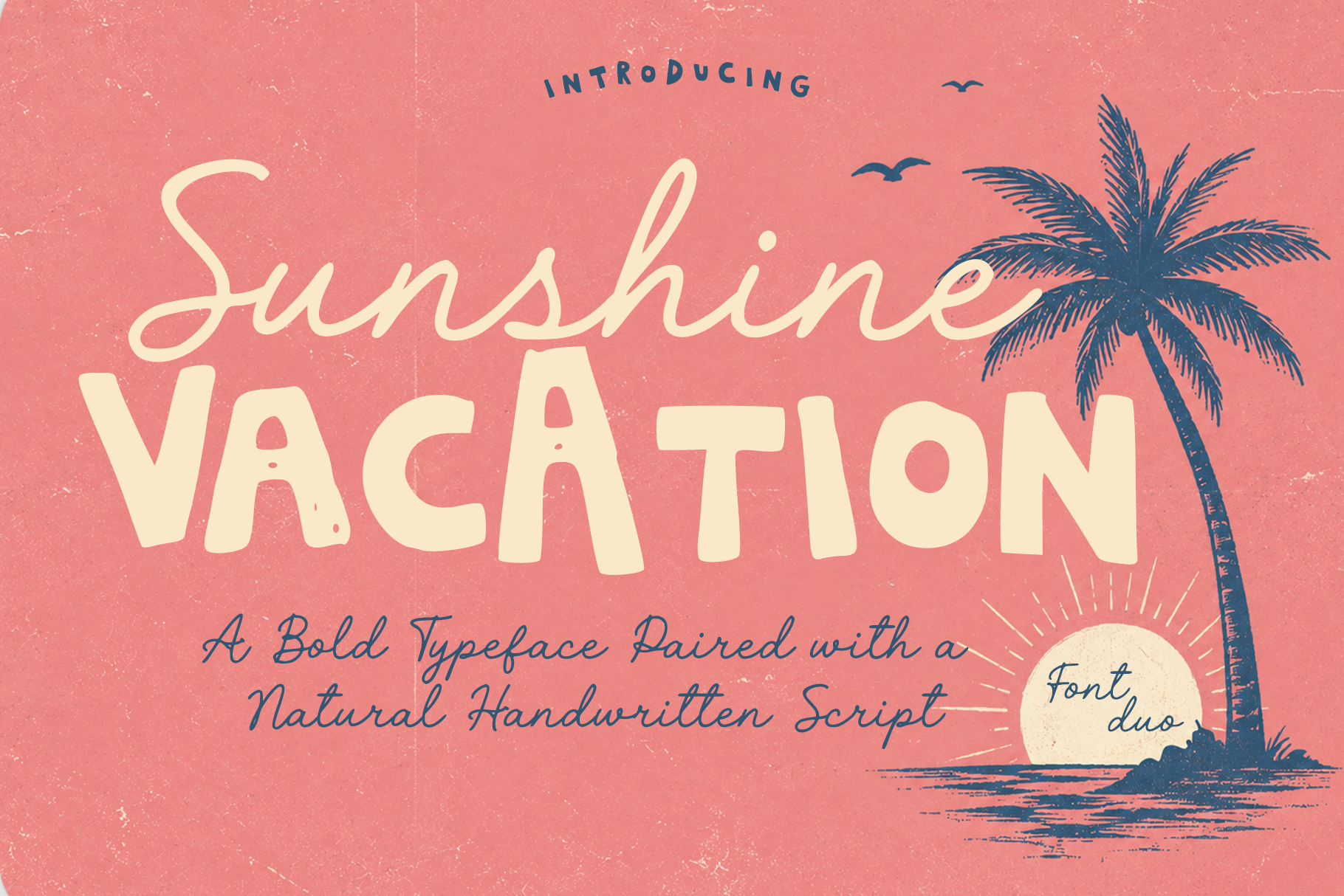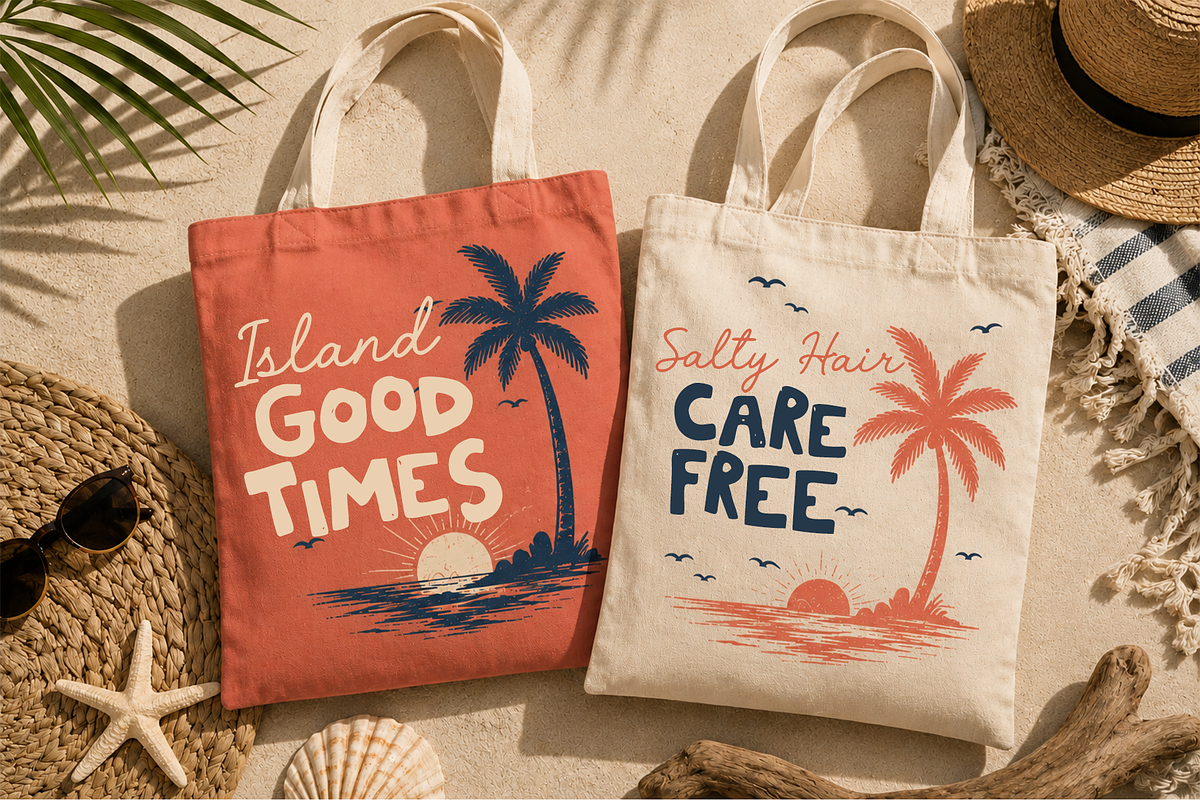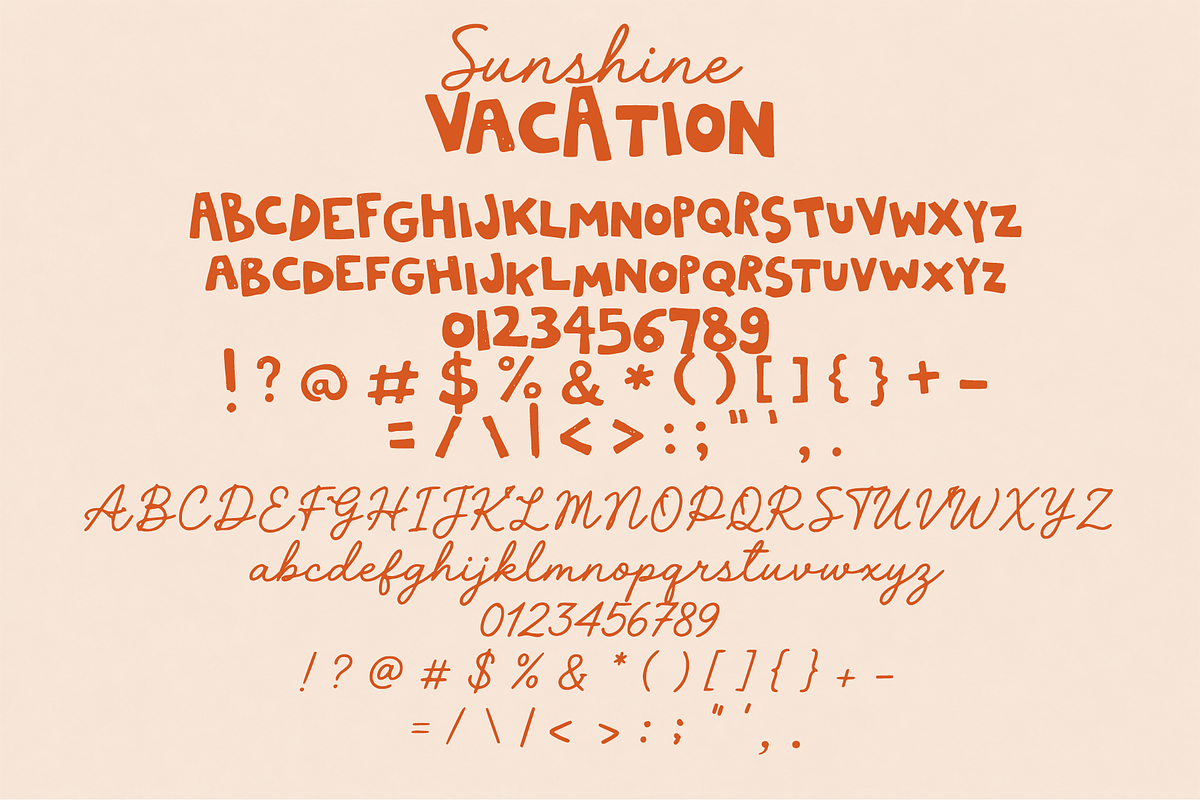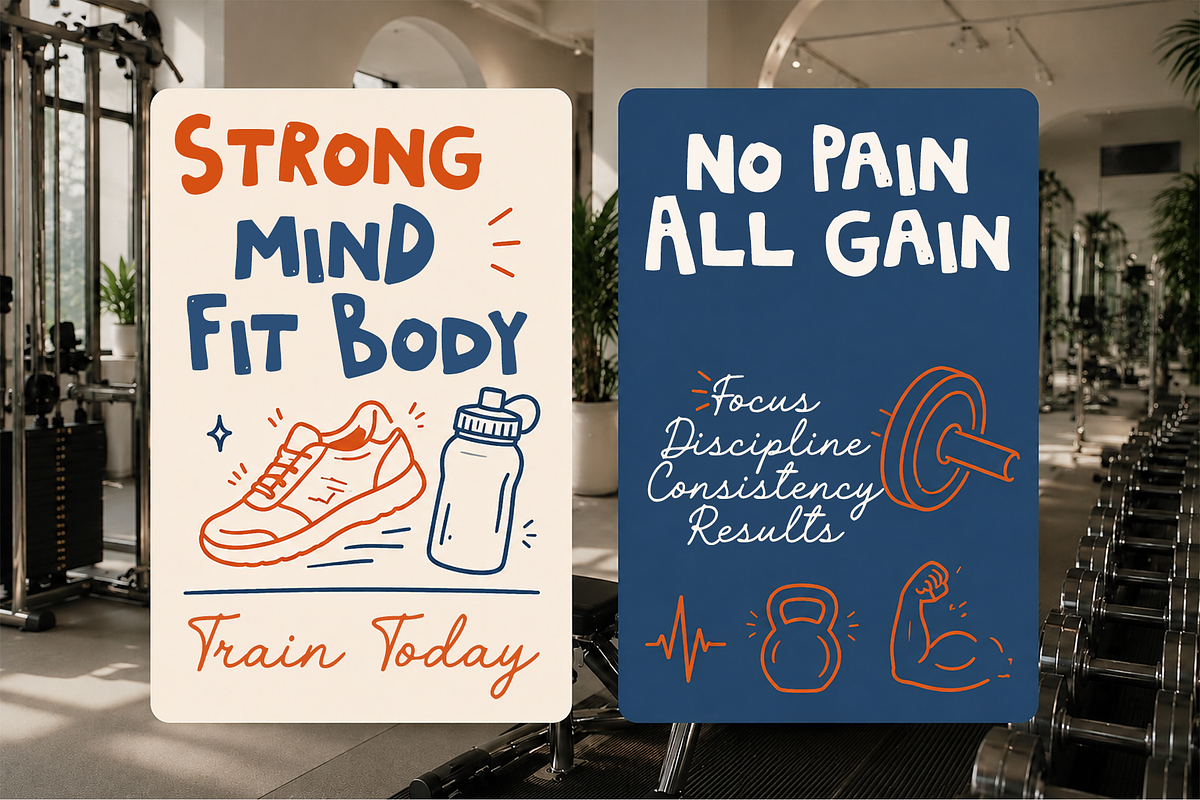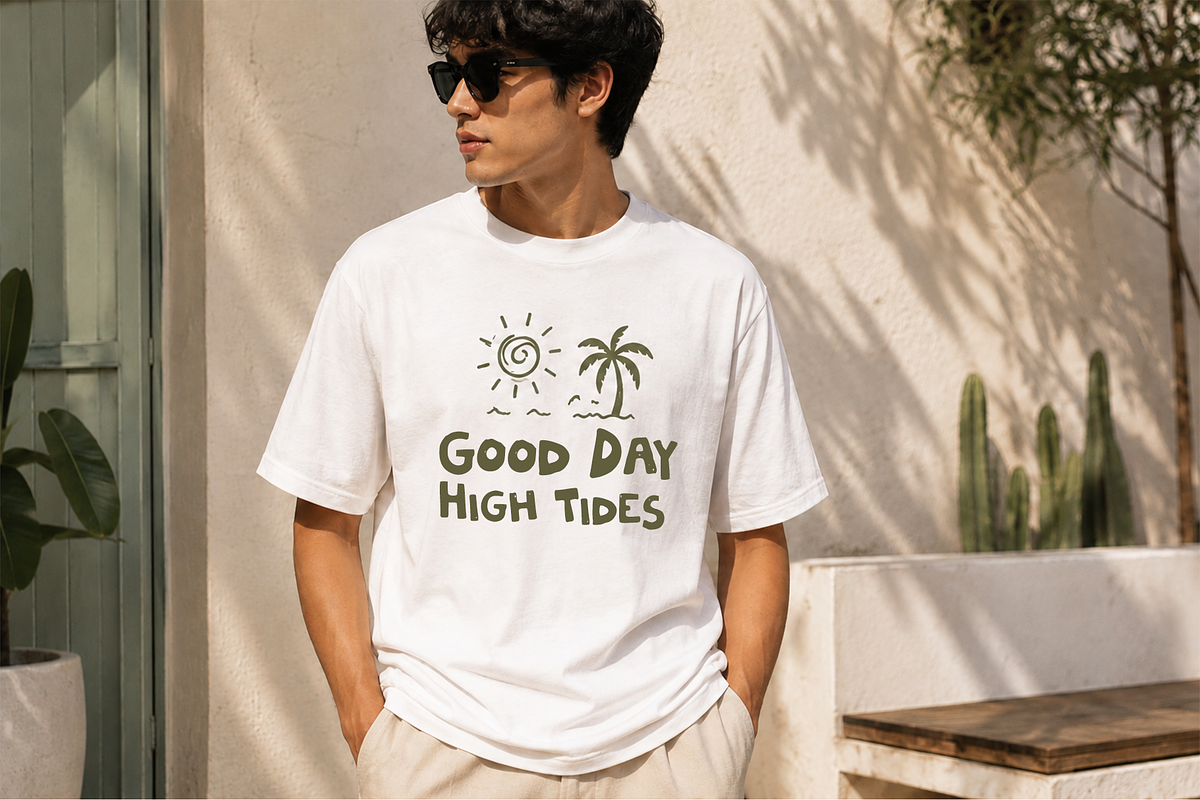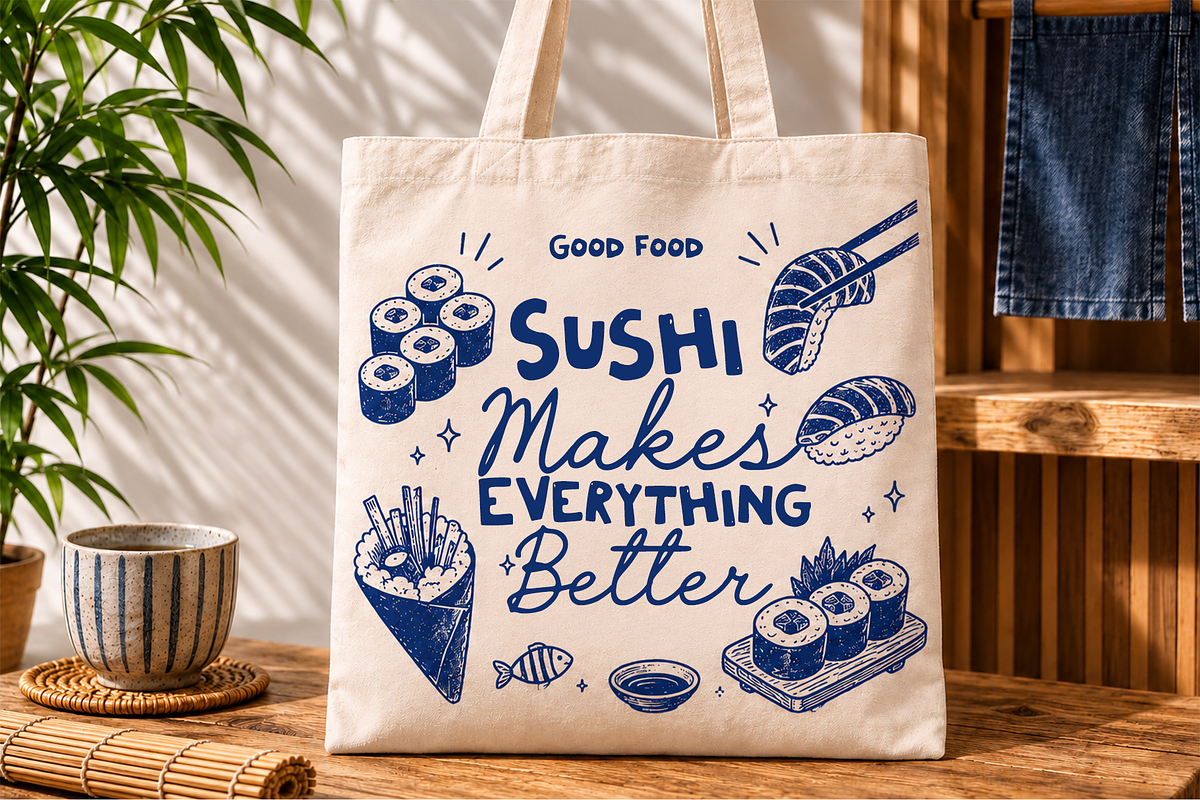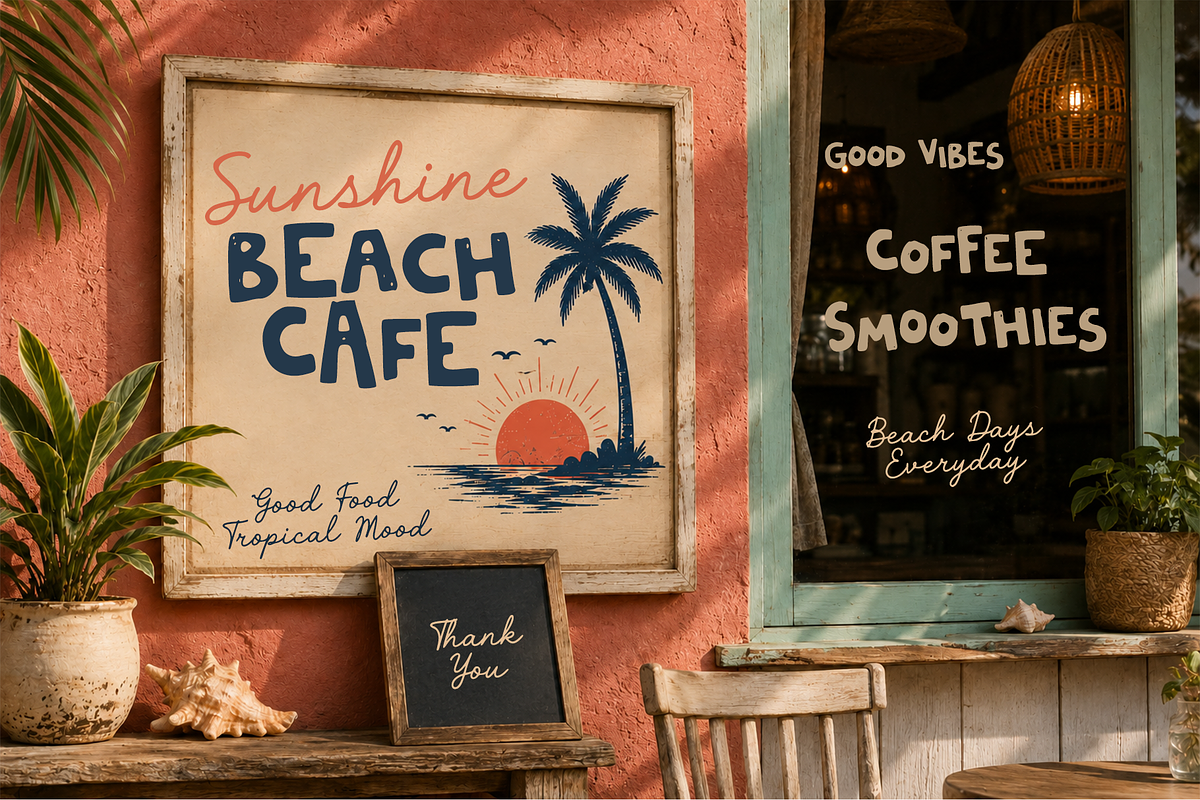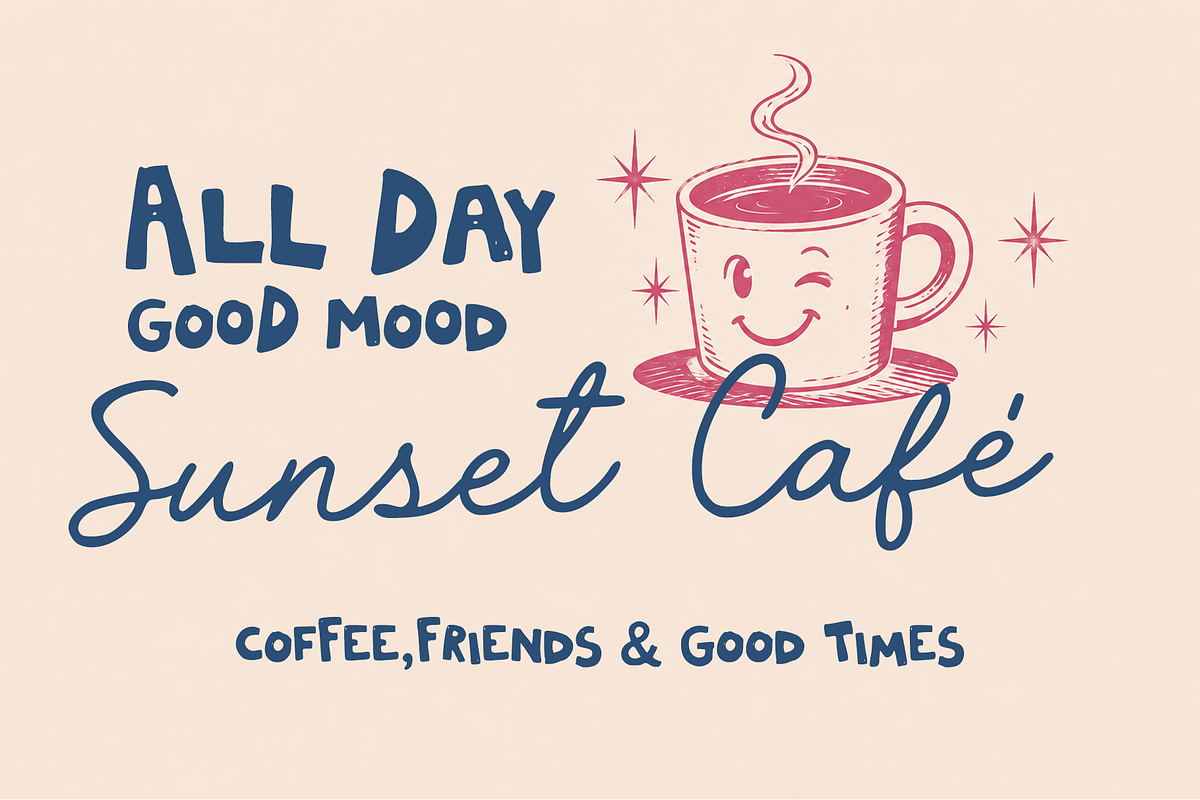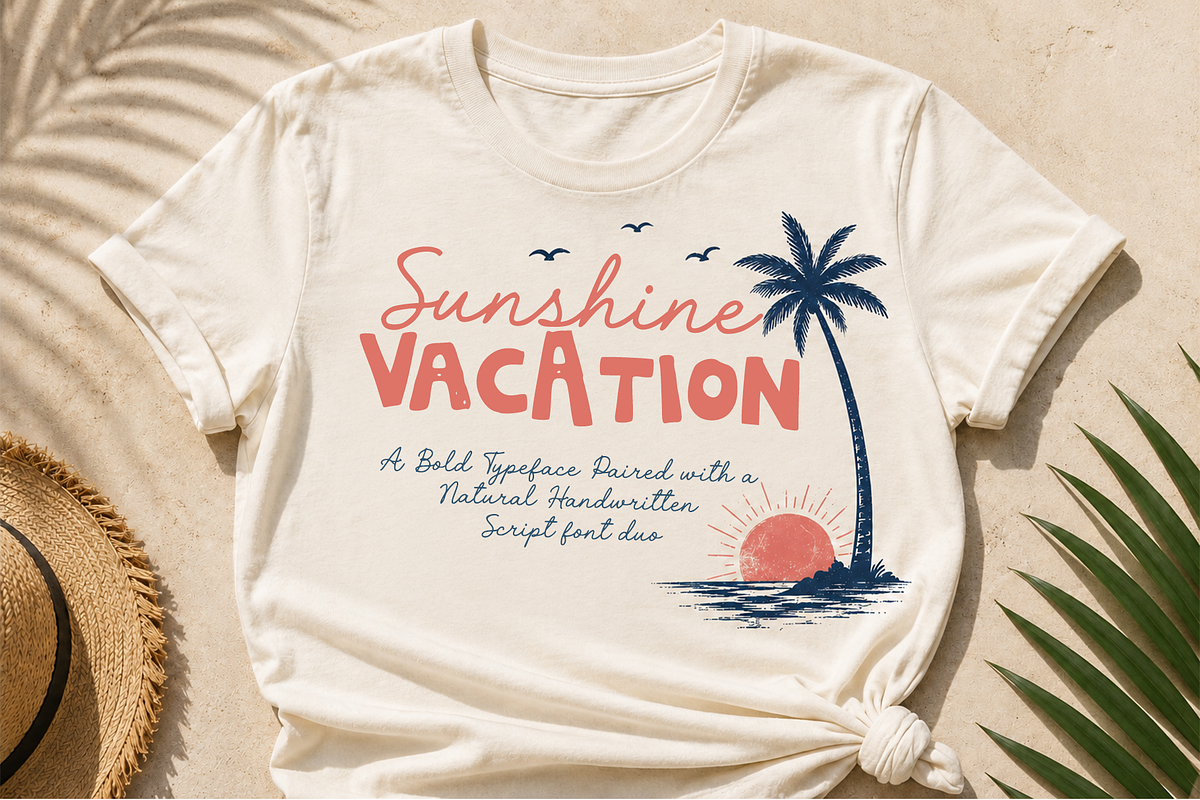
Sunshine Vacation Font Duo
A fun and expressive font duo combining a bold display typeface with a natural handwritten script. The bold style delivers a strong, playful presence, while the handwritten script adds an authentic and relaxed character.
Perfect for creating eye-catching designs with a summer, tropical, beach, retro, and casual lifestyle feel. The combination works well for both modern and vintage-inspired projects.
Ideal for T-shirt designs, logos, branding, posters, packaging, labels, stickers, signage, invitations, social media graphics, postcards, beach merchandise, and decorative typography.